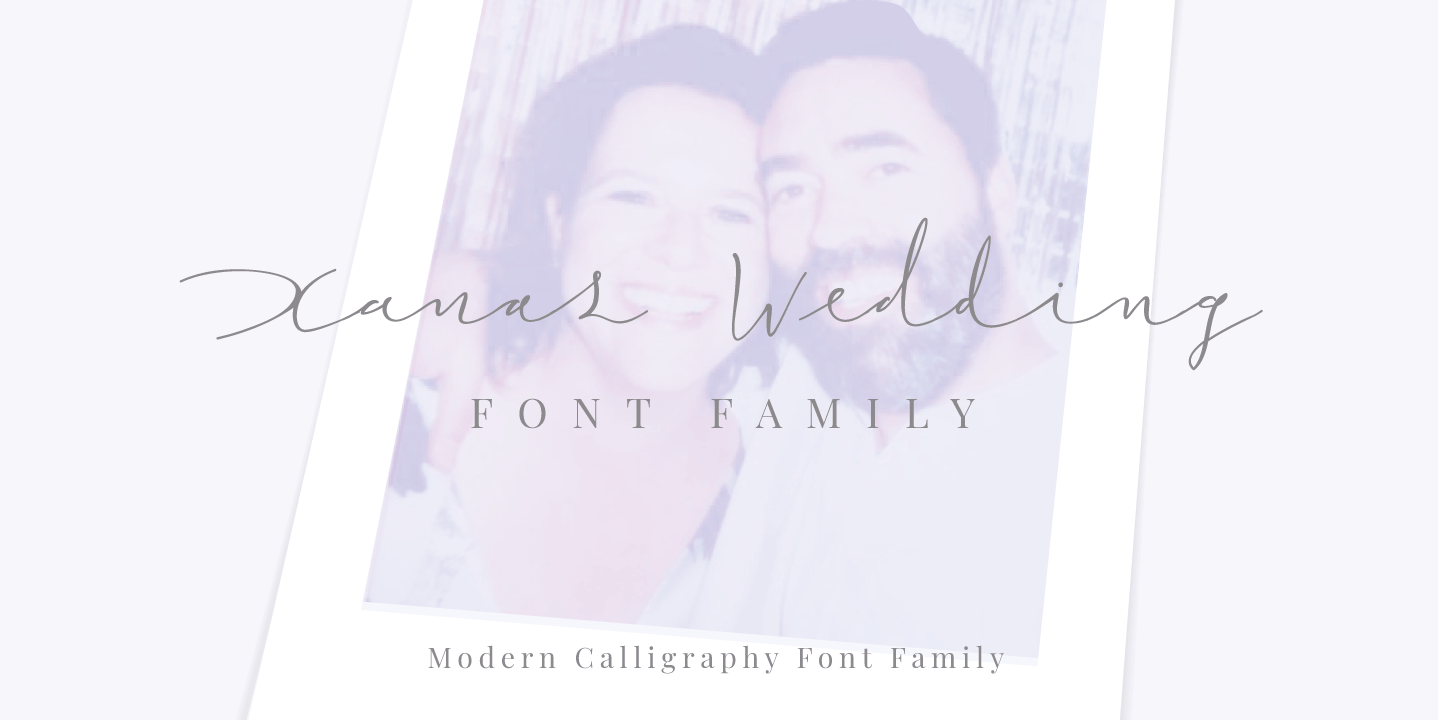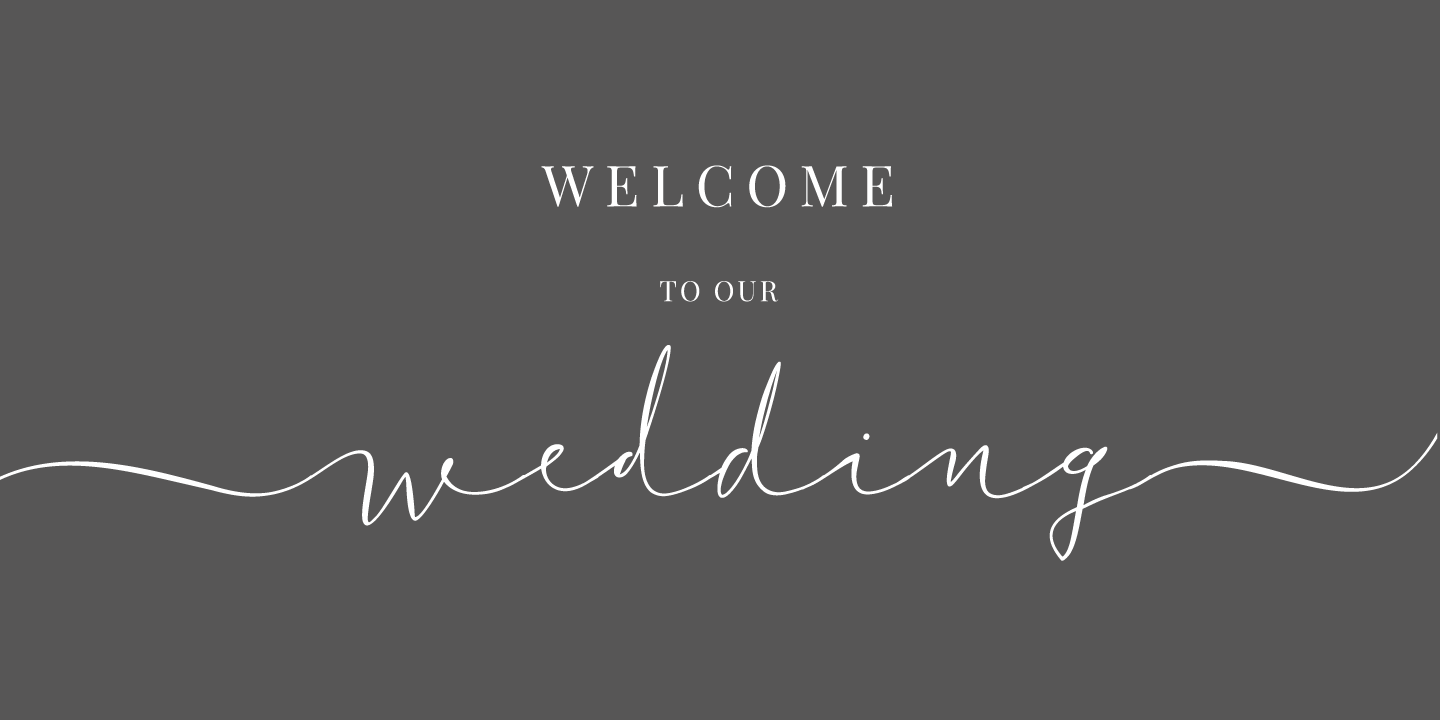
About Xanas Wedding
This font family has derived from a lettering creation for my wedding stationery. One of the most significant momentos for me and my wife Xana (hence the font name – Xanas Wedding). I hope this typography can give a touch of informal elegance and discreet…